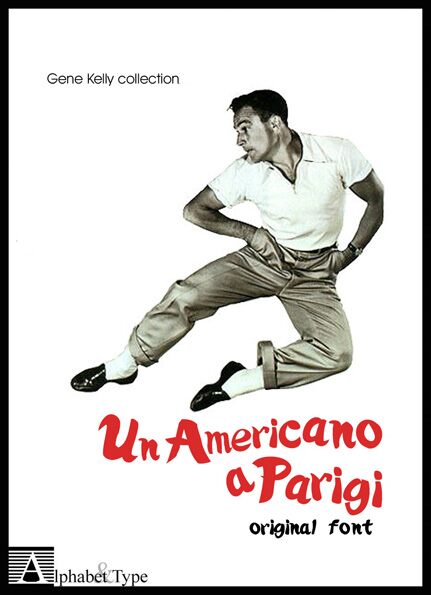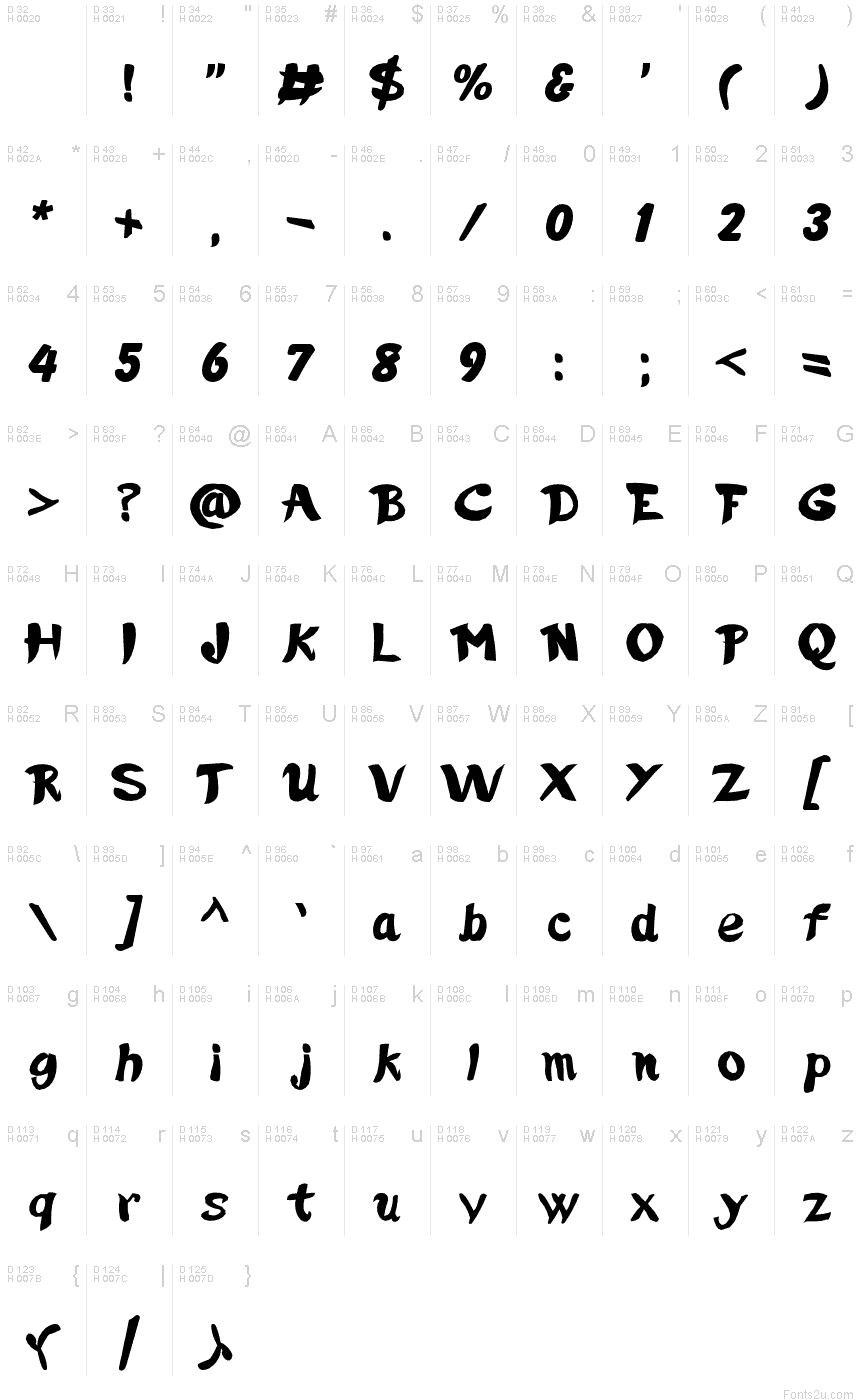
Un Americano A Parigi by P. A. Vannucci is a free brush script with broad, uneven strokes and a lively cut-paper silhouette. Its letters swing between swollen curves and sharp, clipped points, with abrupt changes in width that make the line feel vigorously painted. The irregular forms lean and bounce independently, giving the alphabet a comic, slightly unruly pace.
Packaging is an especially good medium for its handmade punch, particularly on snack labels and casual food branding, and the same blunt shapes suit festival posters and music merchandise. In publishing, it can turn a cover line into a loose illustrated ribbon of lettering.
The An American in Paris font is from the film An American in Paris, directed by Vincente Minnelli and starring Gene Kelly and Leslie Caron.
P. A. Vannucci